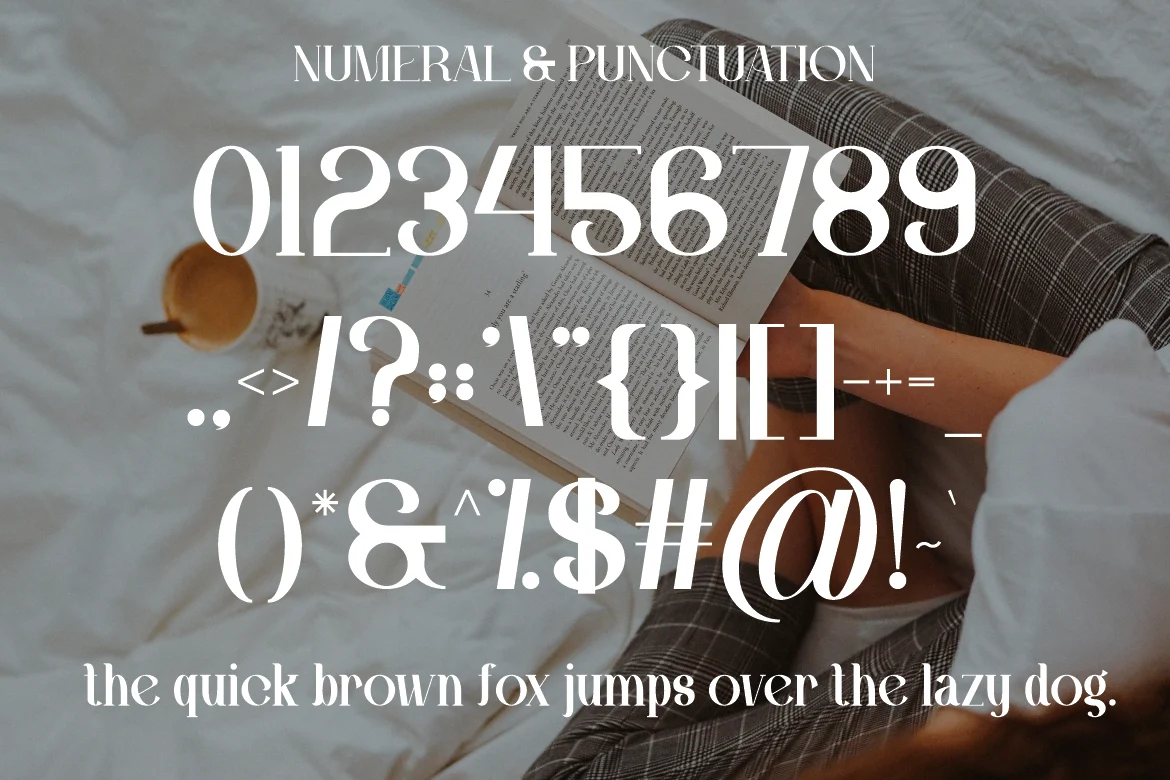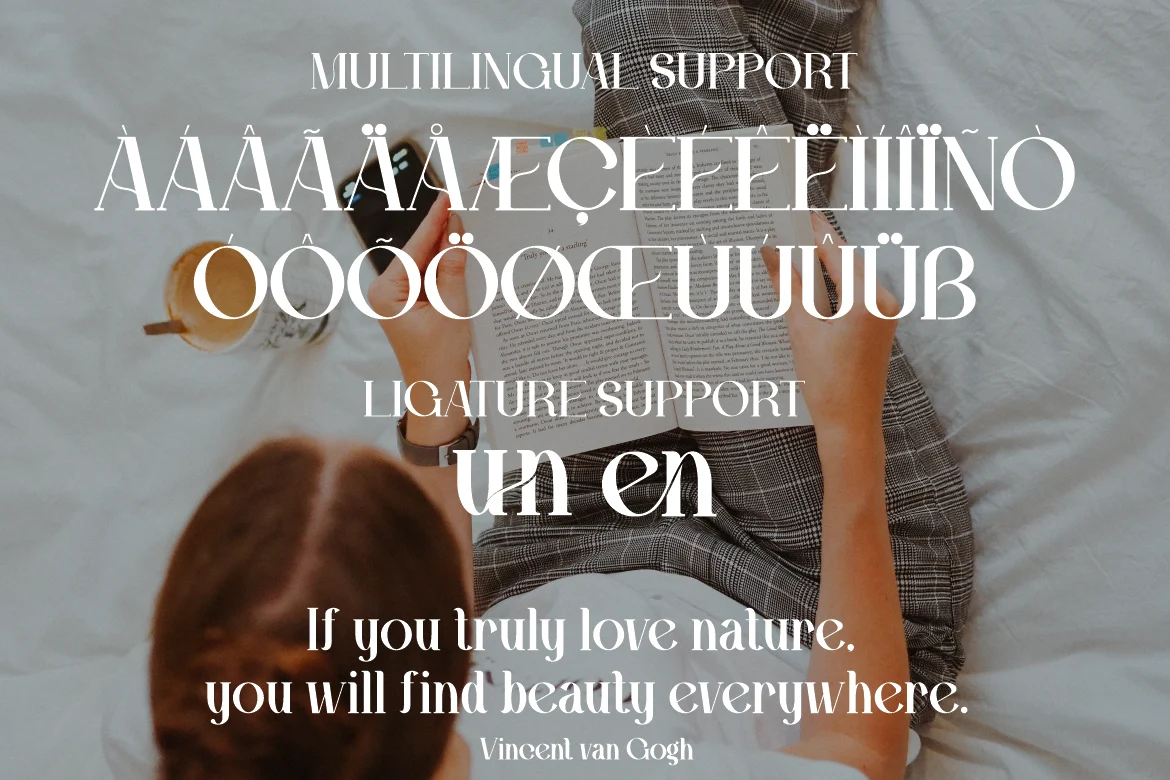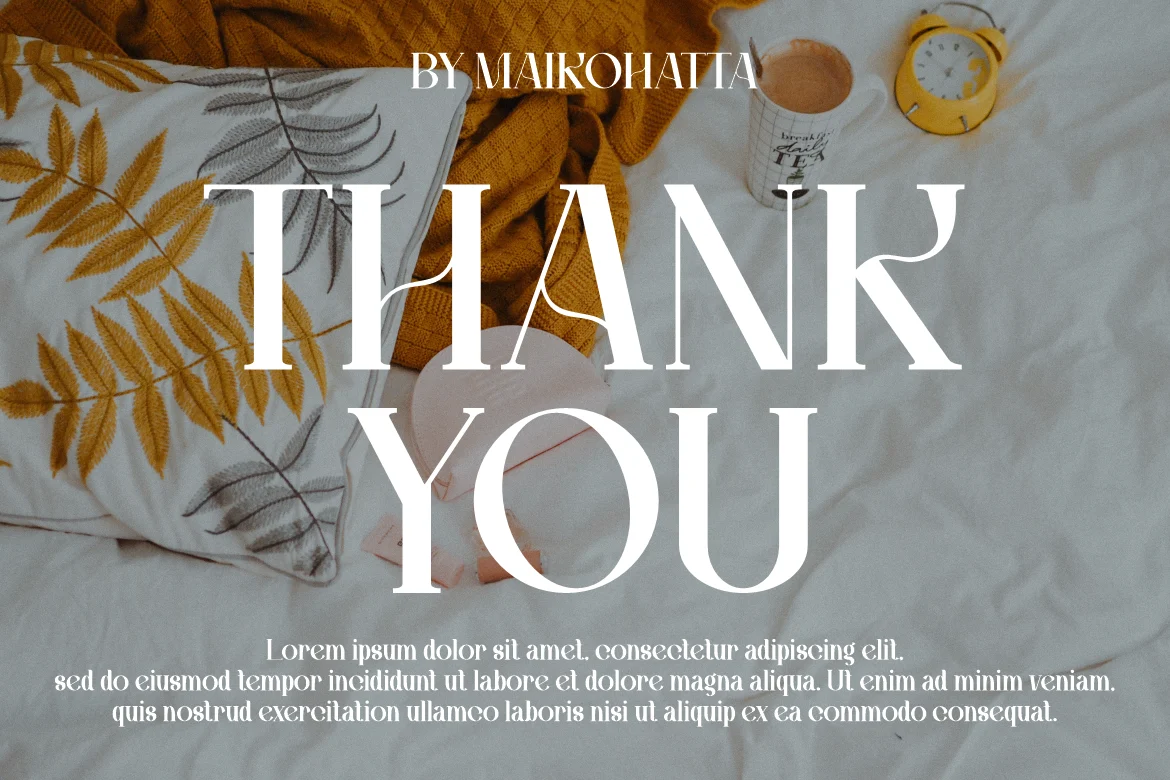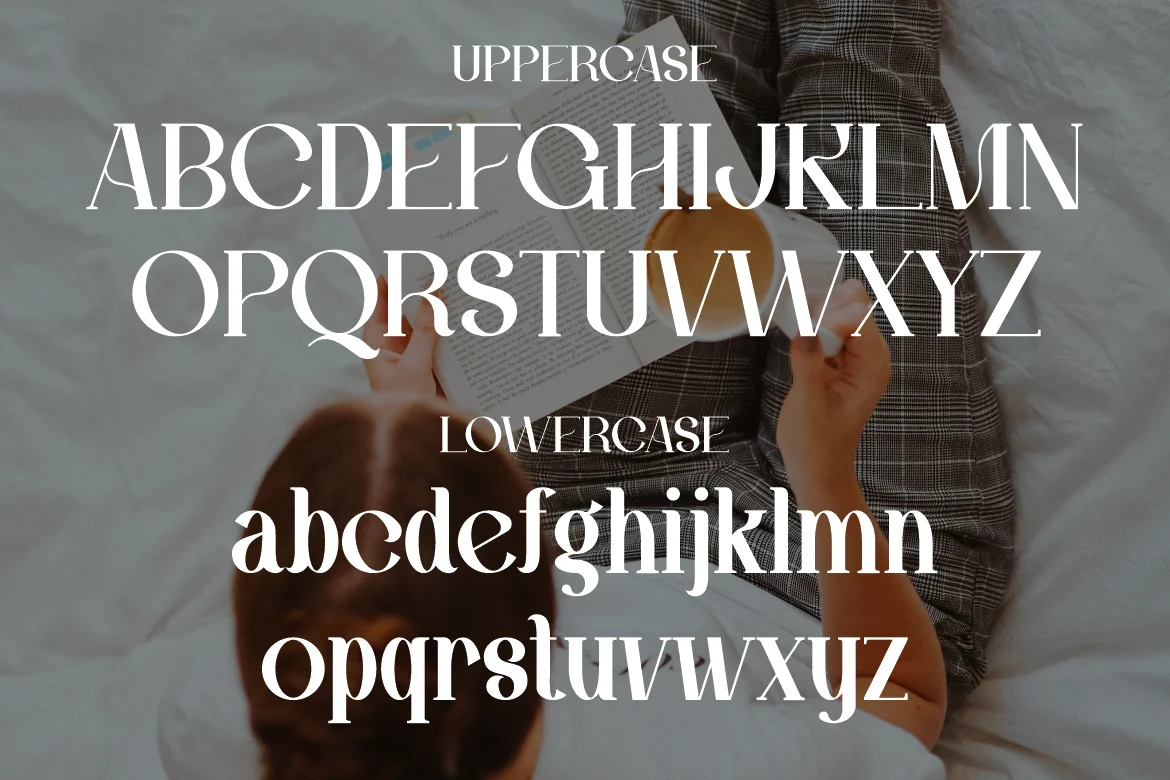
AQIRA – Beauty Serif Font
Introducing our new product AQIRA - Beauty Serif Font - Modern Font
AQIRA - Beauty Serif Font - Modern Font is a bold and authentic display font. The font is suitable for any branding project like logo, template design, cover, and many more. outstanding in a wide range of contexts.